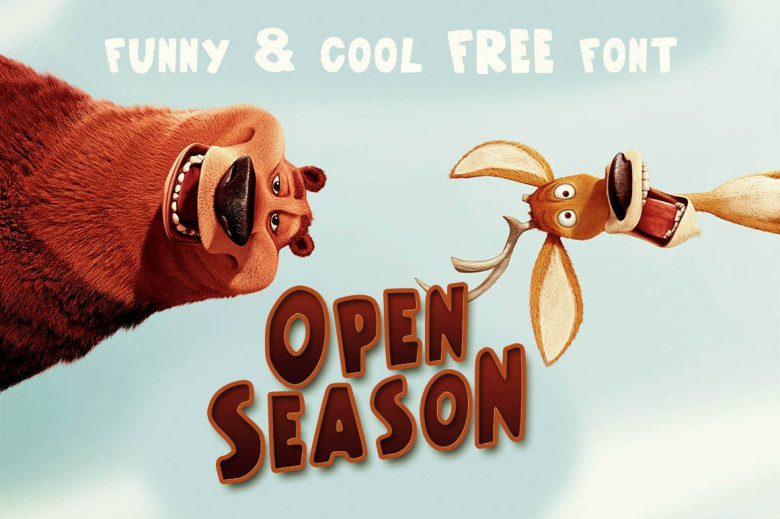
Open Season Font
Open Season Font is a great handdrawn font, designed by João Pereira. Open Season font was inspired by the popular animated film, with the road coarse toilet but very creative and fun. Of course with this font, the design is suitable for comic books, for children and many other purposes.